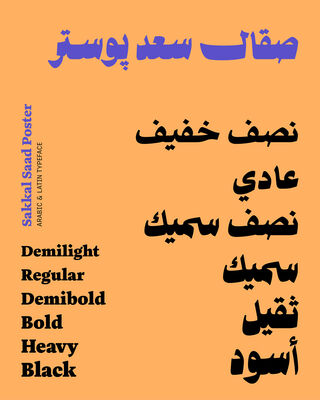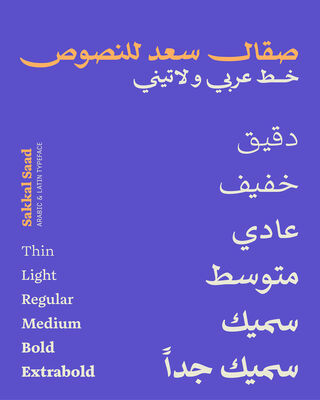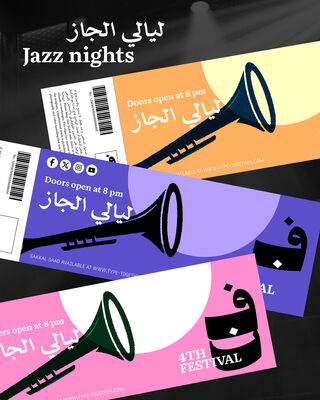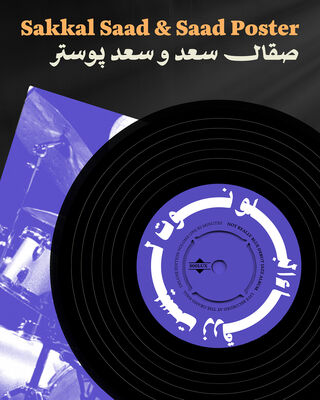
New release: Sakkal Saad
We are thrilled to announce the release of Sakkal Saad, a comprehensive Arabic typeface family from Dr. Mamoun Sakkal and Aida Sakkal that has already been distinguished with a TDC 2023 Certificate of Typographic Excellence and a GRANSHAN 2023-24 Special Mention. This friendly, handwritten Naskh design masterfully bridges time, channelling the vibrant, optimistic energy of Middle Eastern print media from the 1960s to the 1980s while delivering a thoroughly contemporary toolset for today’s designers.
Comprising two harmonised families—Sakkal Saad and the more commanding Sakkal Saad Poster—the system offers 12 weights packed with over 3,000 glyphs each. It is a feature-rich powerhouse, granting unparalleled control over text justification, swash lengths, and letterforms through its extensive OpenType features, making it as suited for poetic, long-form text as it is for bold, eye-catching posters and branding.
Sakkal Saad brings versatile, feature-rich style to expressive graphic design.
We are excited to announce the release of Sakkal Saad, an Arabic typeface with 12 styles by Dr. Mamoun Sakkal and Aida Sakkal! The family communicates through both traditional and modern design elements: calligraphic beauty balanced by sharp pen strokes for a contemporary look that carries a dose of warmth.
Designed for text, Sakkal Saad has compact vertical proportions for space economy while maintaining legibility, whereas Sakkal Saad Poster opts to take up more vertical space with a commanding presence that still only barely extends words horizontally across a line. The sharp strokes of the pen are also clearly expressed for a contemporary look, highlighting the fine characteristics of Naskh calligraphy here.
The text family, Sakkal Saad, is ideal for signage, branding, and long text settings, especially online and in books and magazines. And the display family, Sakkal Saad Poster is great for display and advertising. With an included custom version of Aneto for Latin-based text, Sakkal Saad provides clarity and graphic style in multiscript design and communication.
The family is ideal for signage, branding, poetry, and long text settings, especially online and in books and magazines.
The shared, rich OpenType features across all 12 weights create a seamless and powerful design system for complex projects.